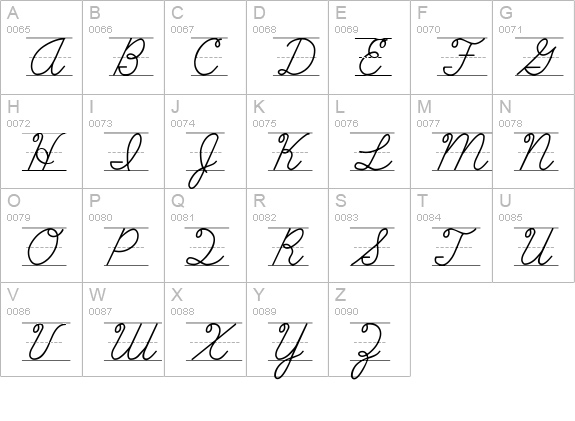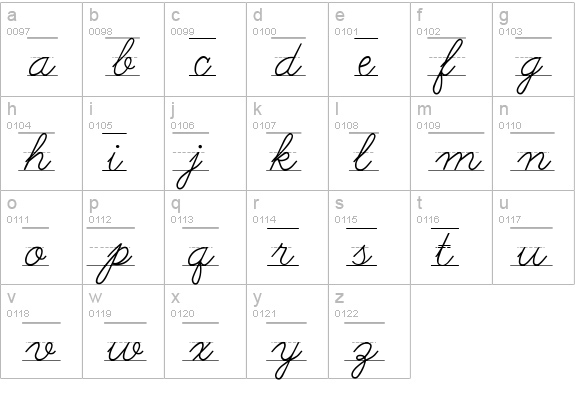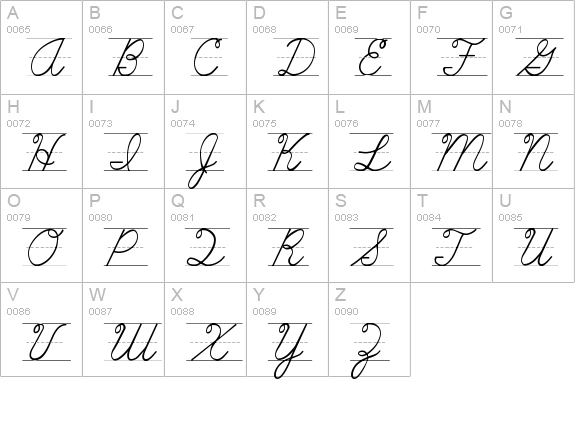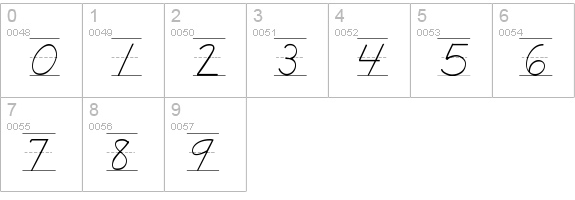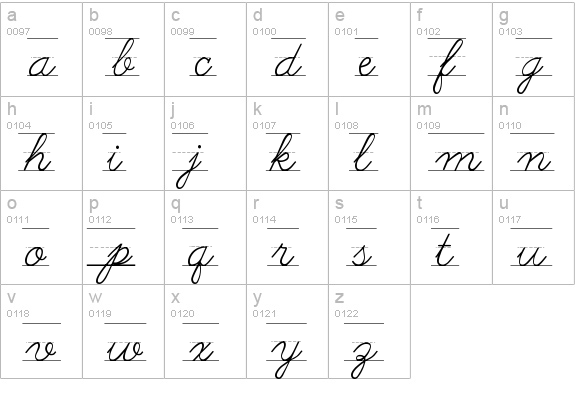
Introducing AbcCursiveLined font, a beautifully crafted typeface that combines elegance with readability. This cursive font features smooth, flowing lines and a classic style that is perfect for a variety of design projects. Whether you're creating invitations, greeting cards, or educational materials, AbcCursiveLined font will bring a touch of sophistication to your work. The best part? AbcCursiveLined font is available for free download at FontsMarket.com. This means you can easily add this versatile font to your collection without breaking the bank. Don't miss out on the opportunity to enhance your designs with the timeless charm of AbcCursiveLined font. Download it today and let your creativity flow!